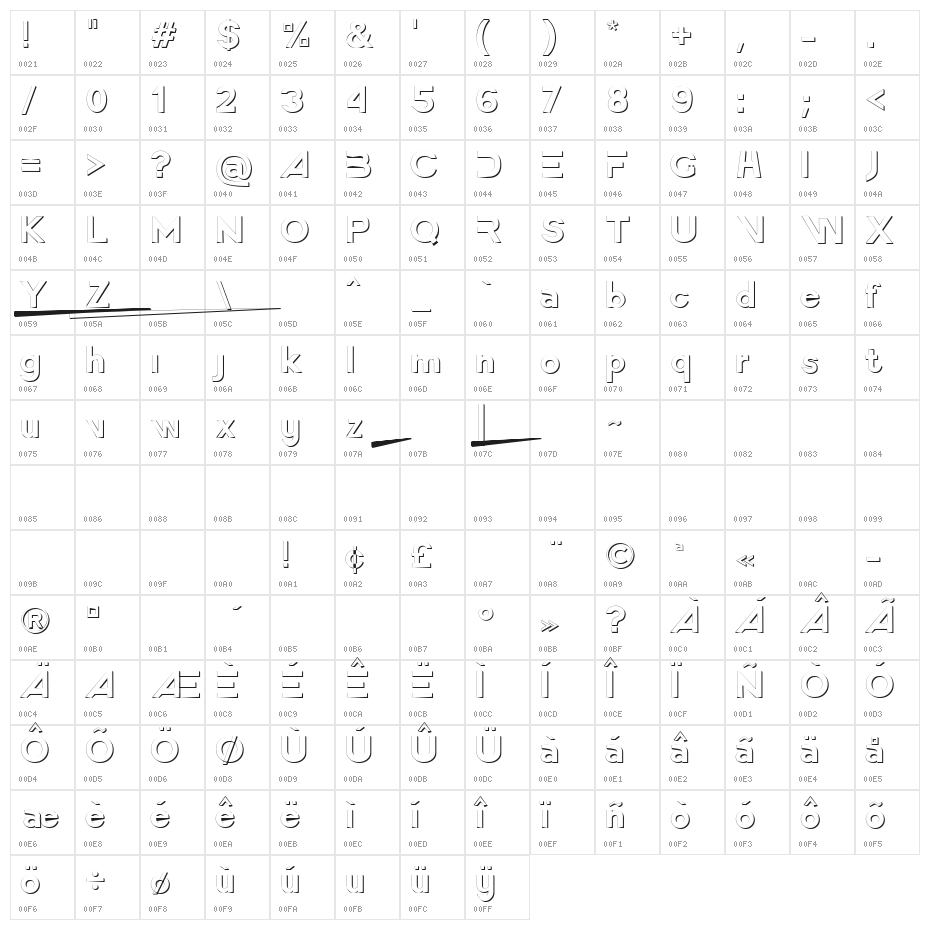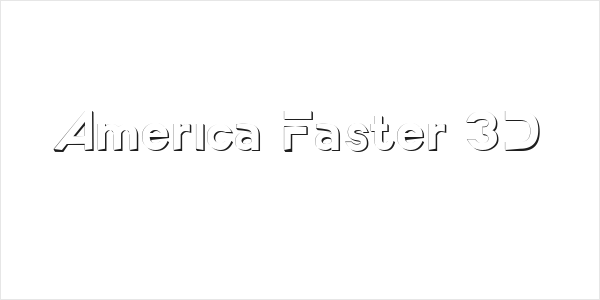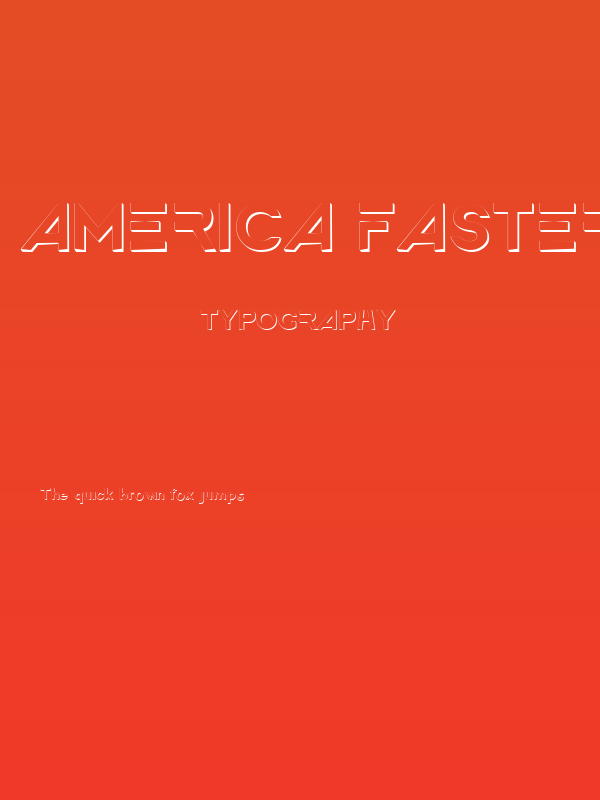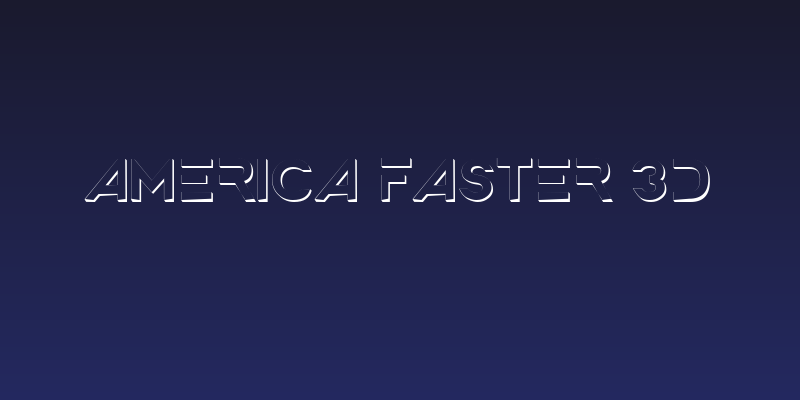
America Faster 3D Font
America Faster 3D Description
This font features a bold, three-dimensional style with a modern and futuristic appearance. The characters are outlined, giving them a hollow look that adds depth and dimension. The uppercase and lowercase letters maintain a consistent geometric structure, with sharp angles and clean lines. The numerals and special characters follow the same design principles, ensuring uniformity across all glyphs. This font is ideal for projects that require a strong visual impact and a contemporary aesthetic.
Proposed ProjectsIdeal for branding, posters, headlines, and digital media that require a striking, modern look.